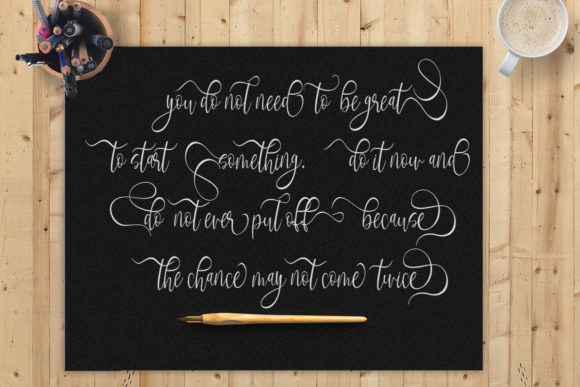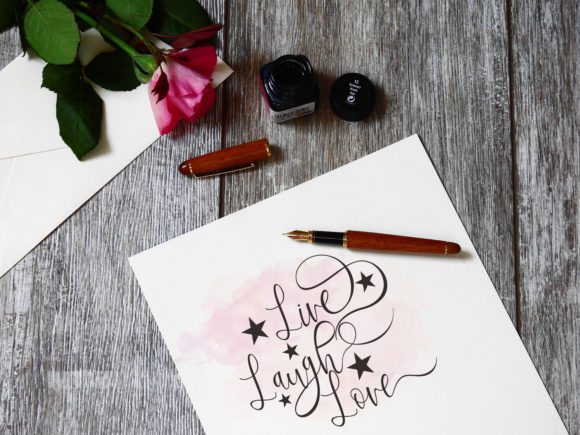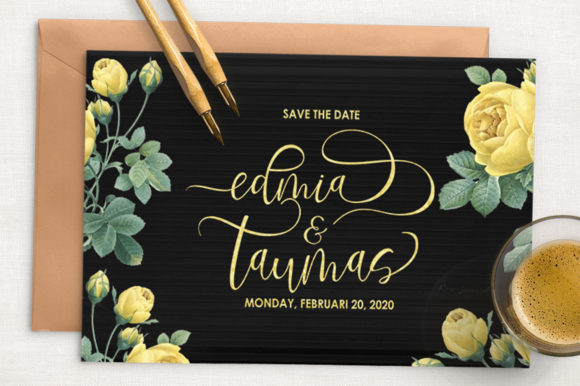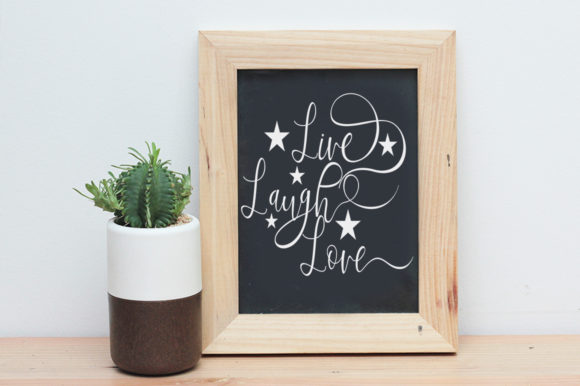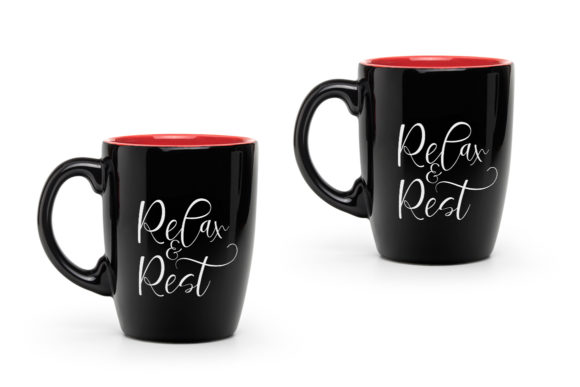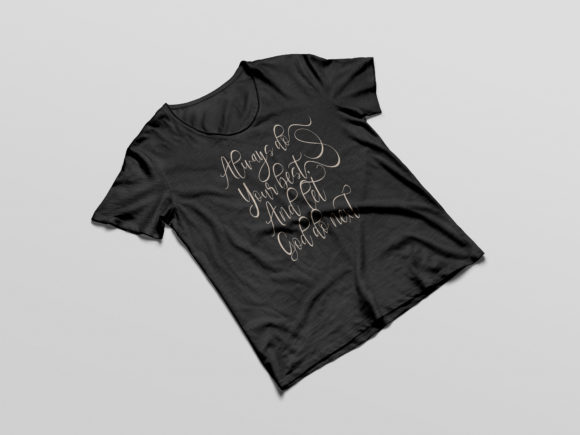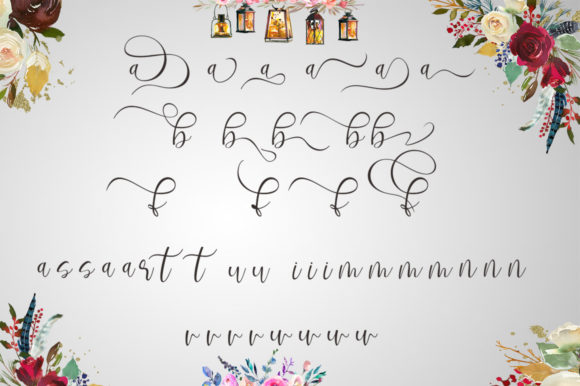
Revalisha Font
About Revalisha Font
Revalisha is an ultra-modern typeface with tasty flow, snap-perfect characters, and start & end swashes. Its authentic handmade look makes it as easy to add character and excitement to your designs!